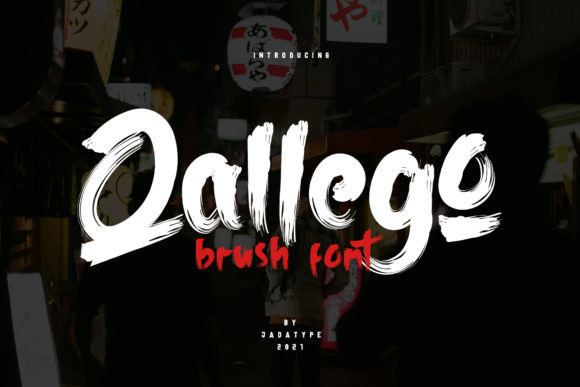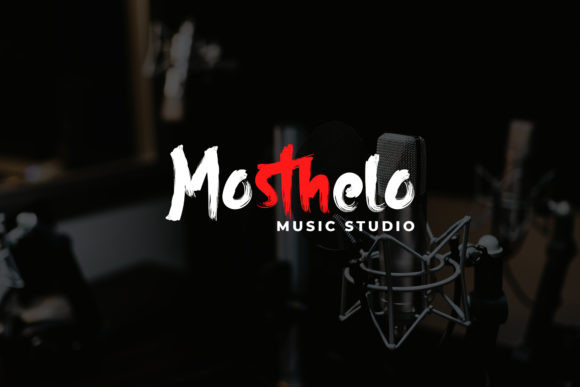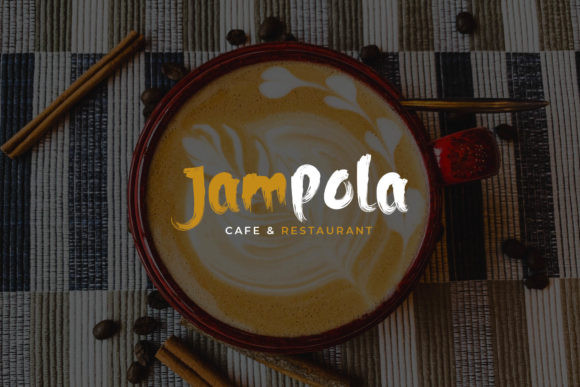
Qallego Font
Qallego FontQallego is an unique display font. It will add an incredibly joyful touch to your designs.
Fall in love with its playful style and use it to create beautiful stationary art, eye-catching social media posts, and much more!